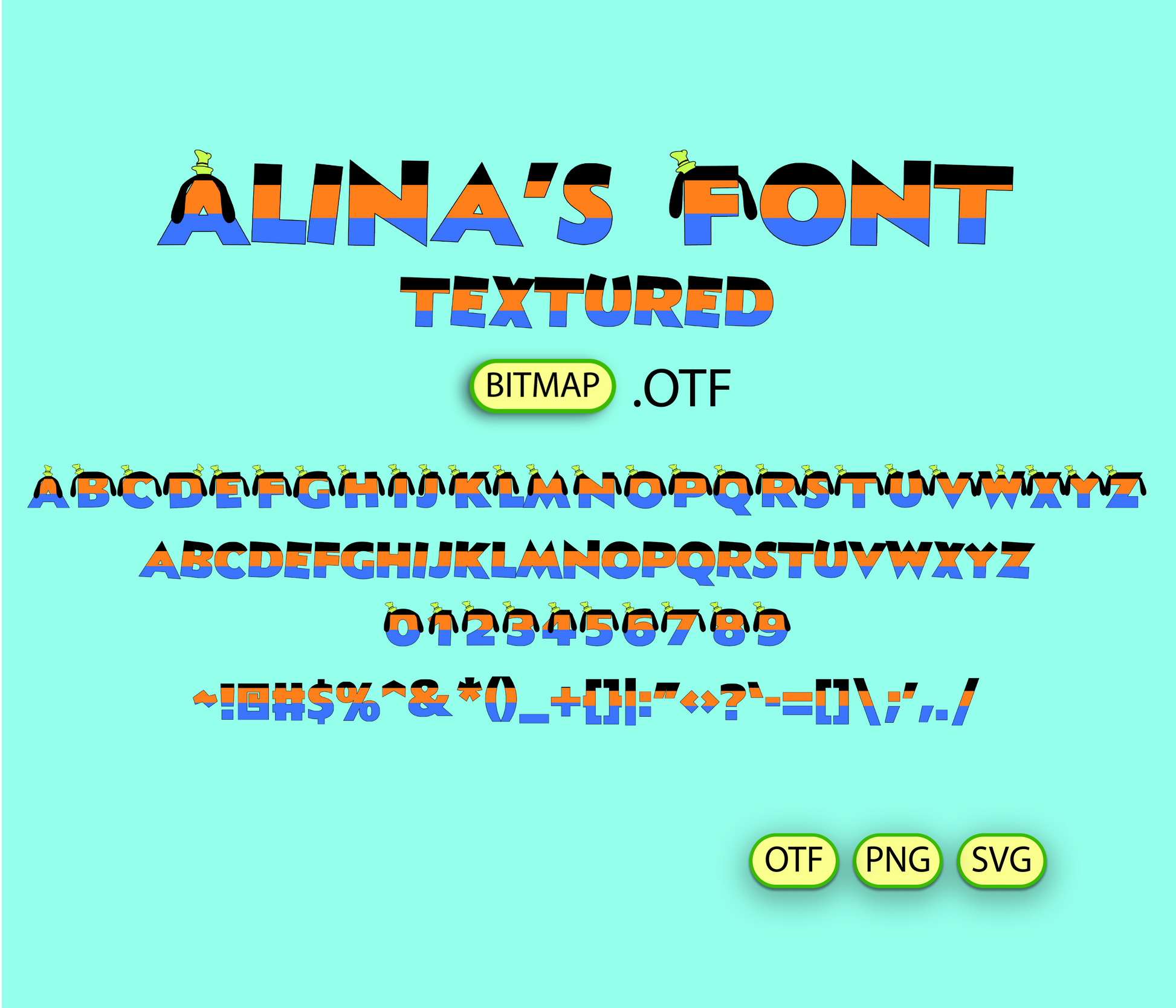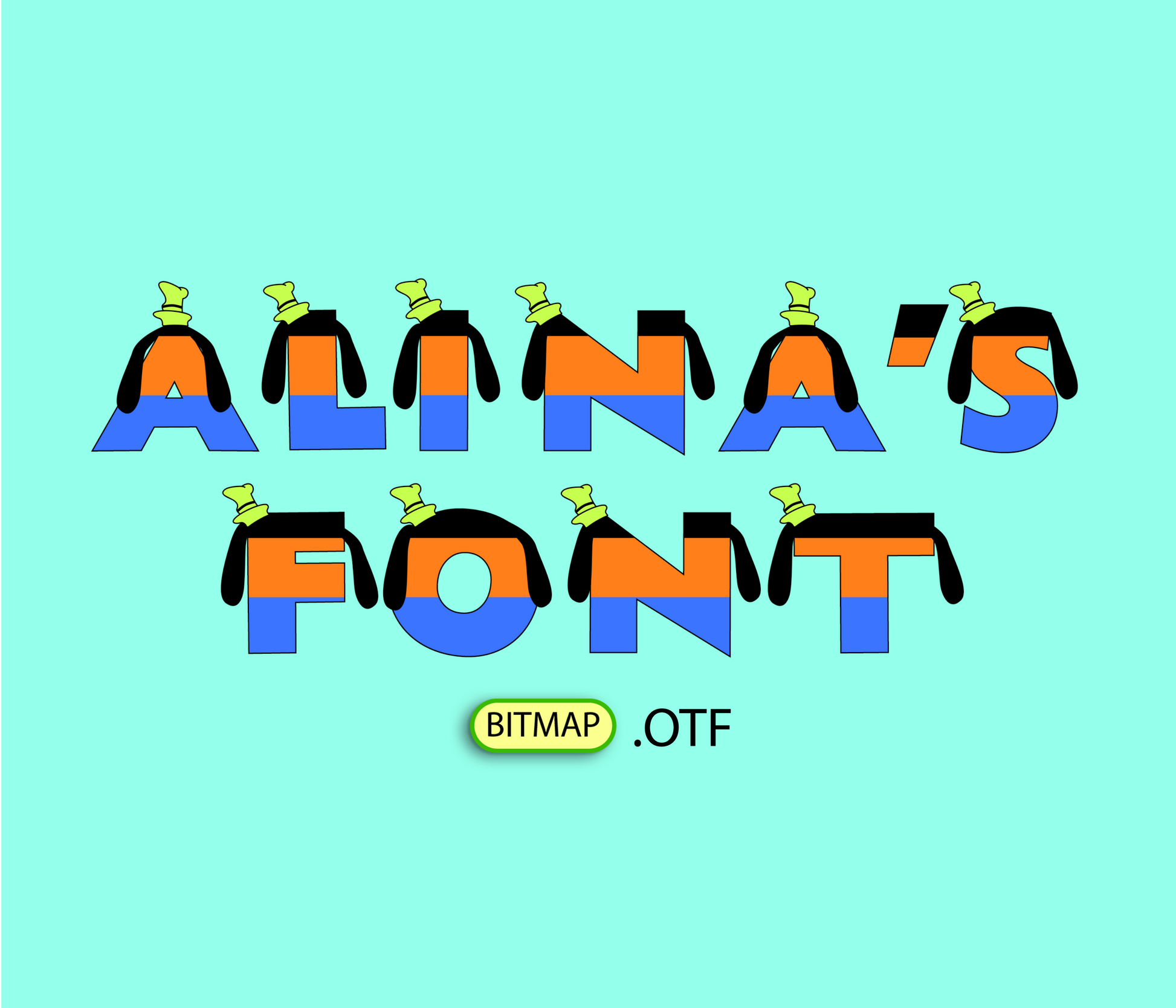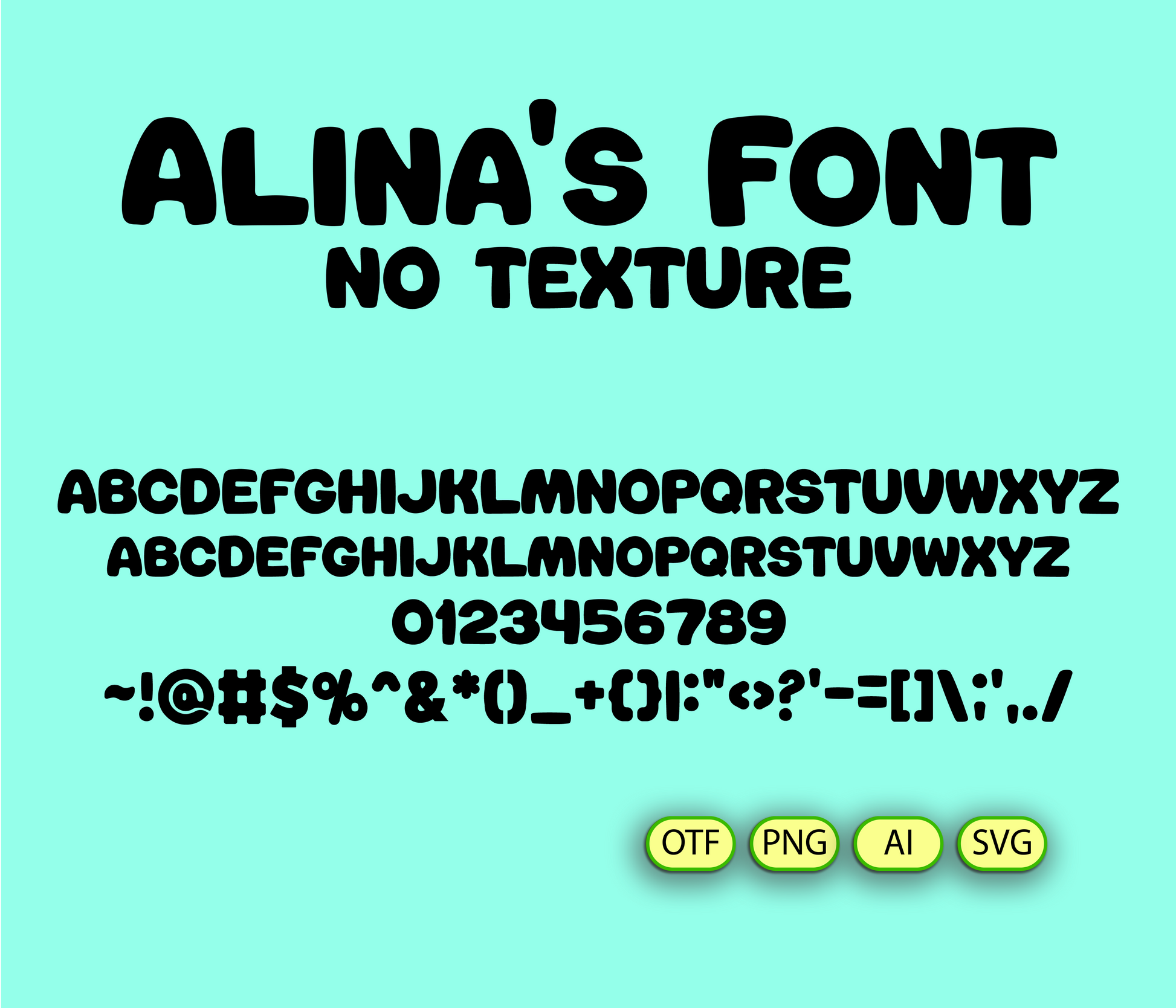
Clumsy Bumbling Pattern Font
Clumsy Font Textured Bumbling Adventure Style
Step into the hilarious world of bumbling mishaps and heartwarming adventures with our Clumsy font, capturing the essence of slapstick comedy and lovable chaos. Perfect for family events, comedy content creators, adventure enthusiasts, and creative professionals, this font brings the endearing, awkward spirit of good-natured adventures to your projects. Create amusing invitations, comedy-themed merchandise, or digital content with the wholesome, silly energy of bumbling hero tales.
Our Clumsy font features wobbly, uneven strokes and playful characters reflecting the endearingly awkward yet lovable aesthetic of comedic adventure scenarios. Ideal for:
Many seek an online font generator to mimic the look of the Clumsy Font. Steer clear! No generator can match the quality of our font, which comes in two versions: a textured colored font and a simple version, perfect for cutting machines.